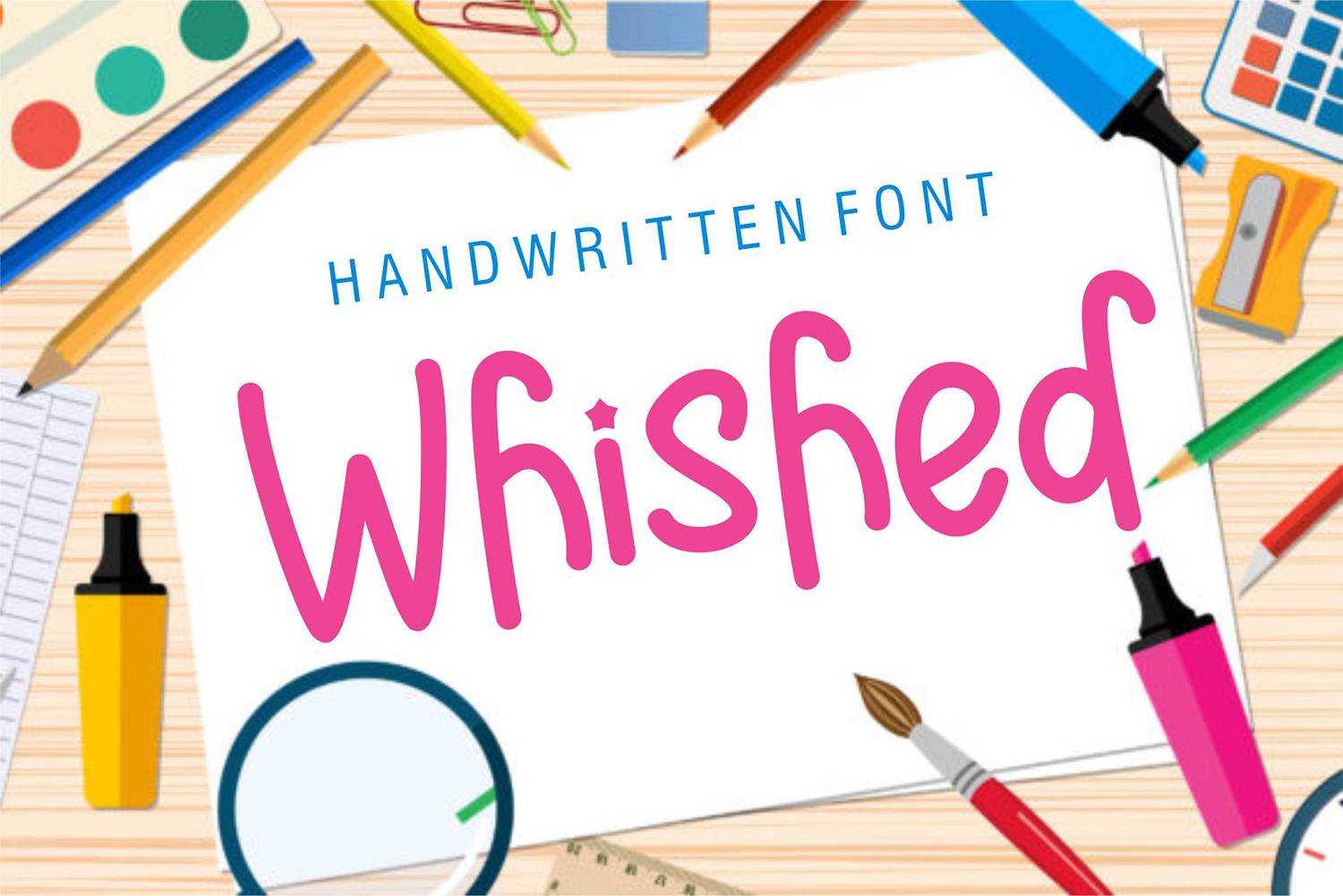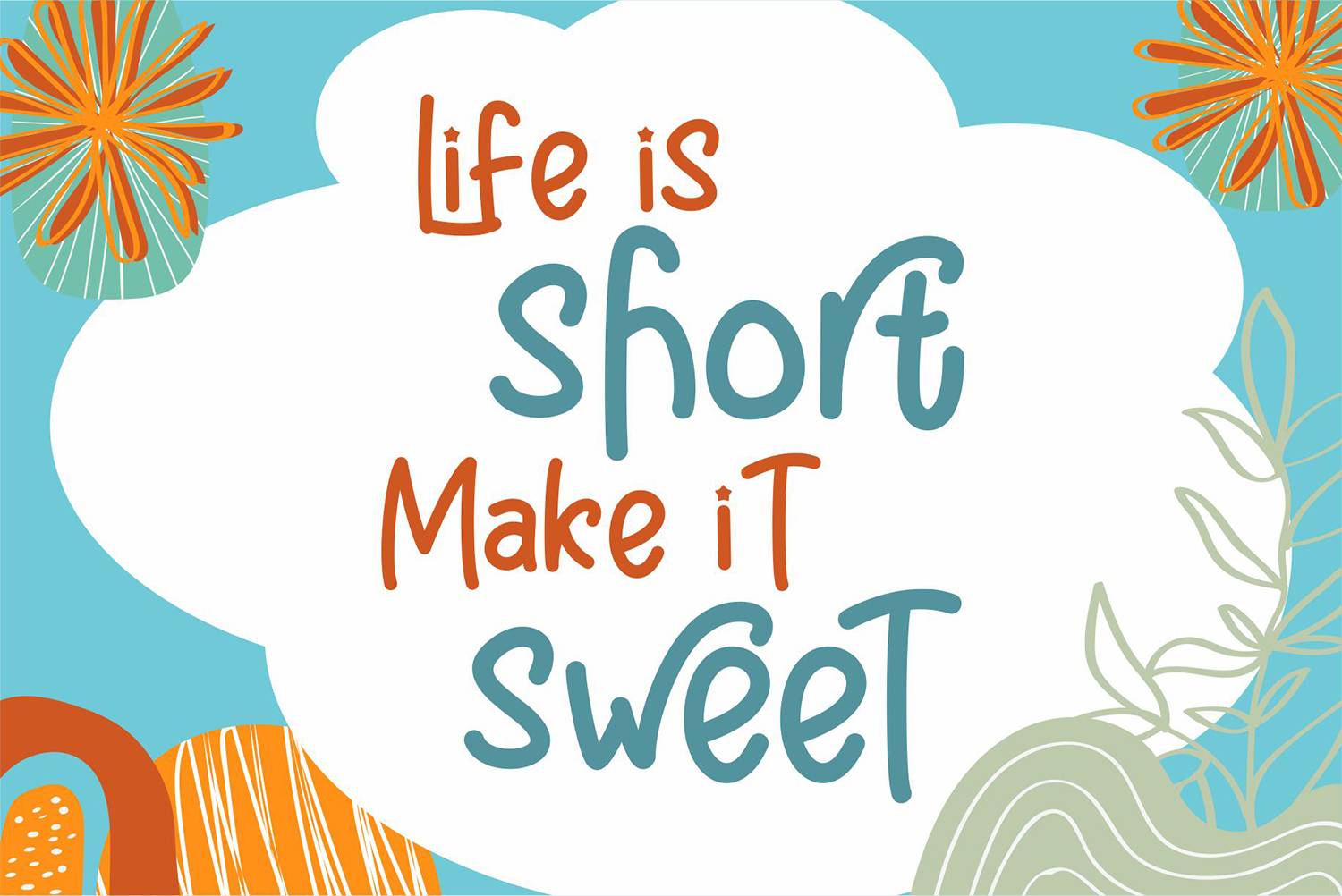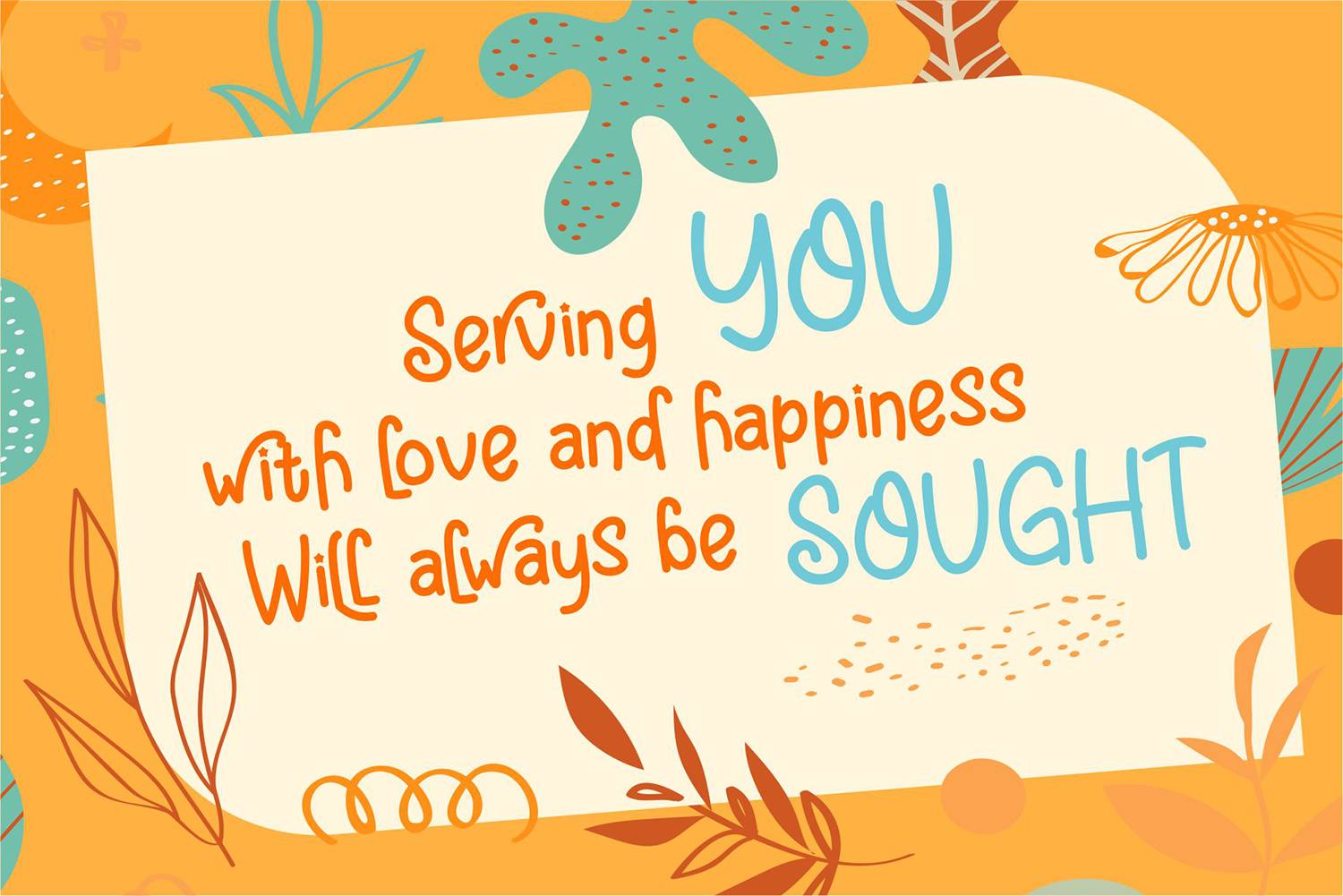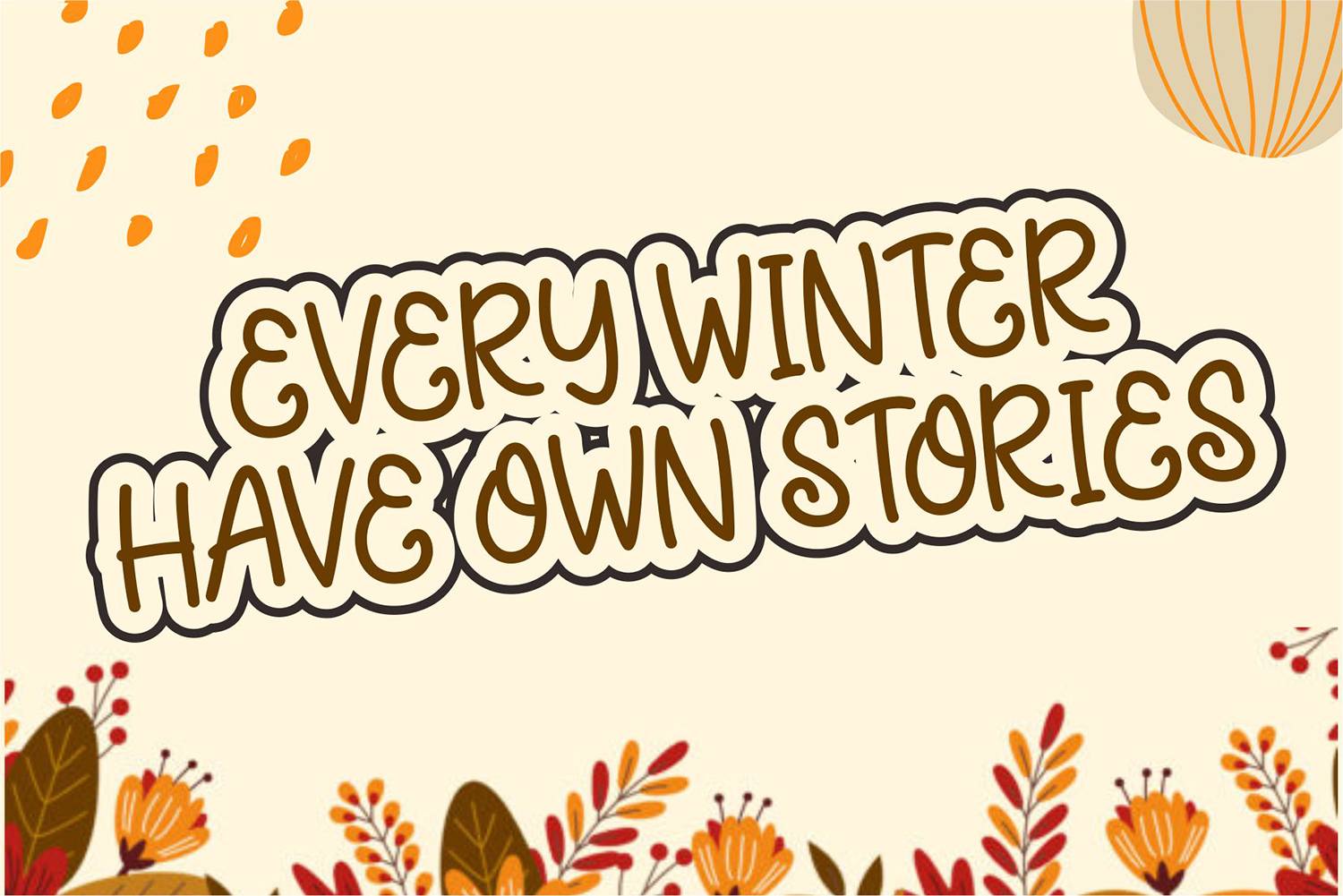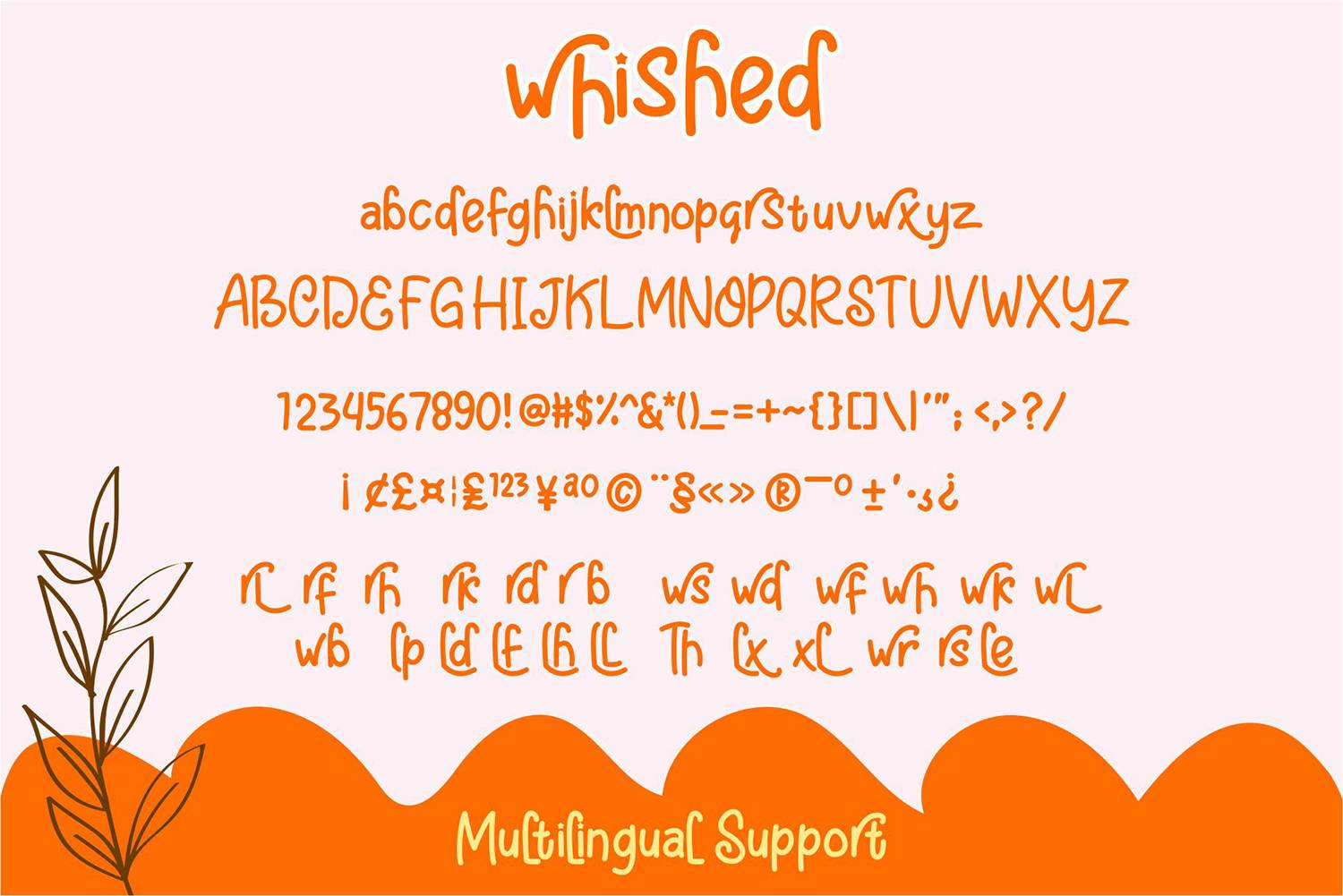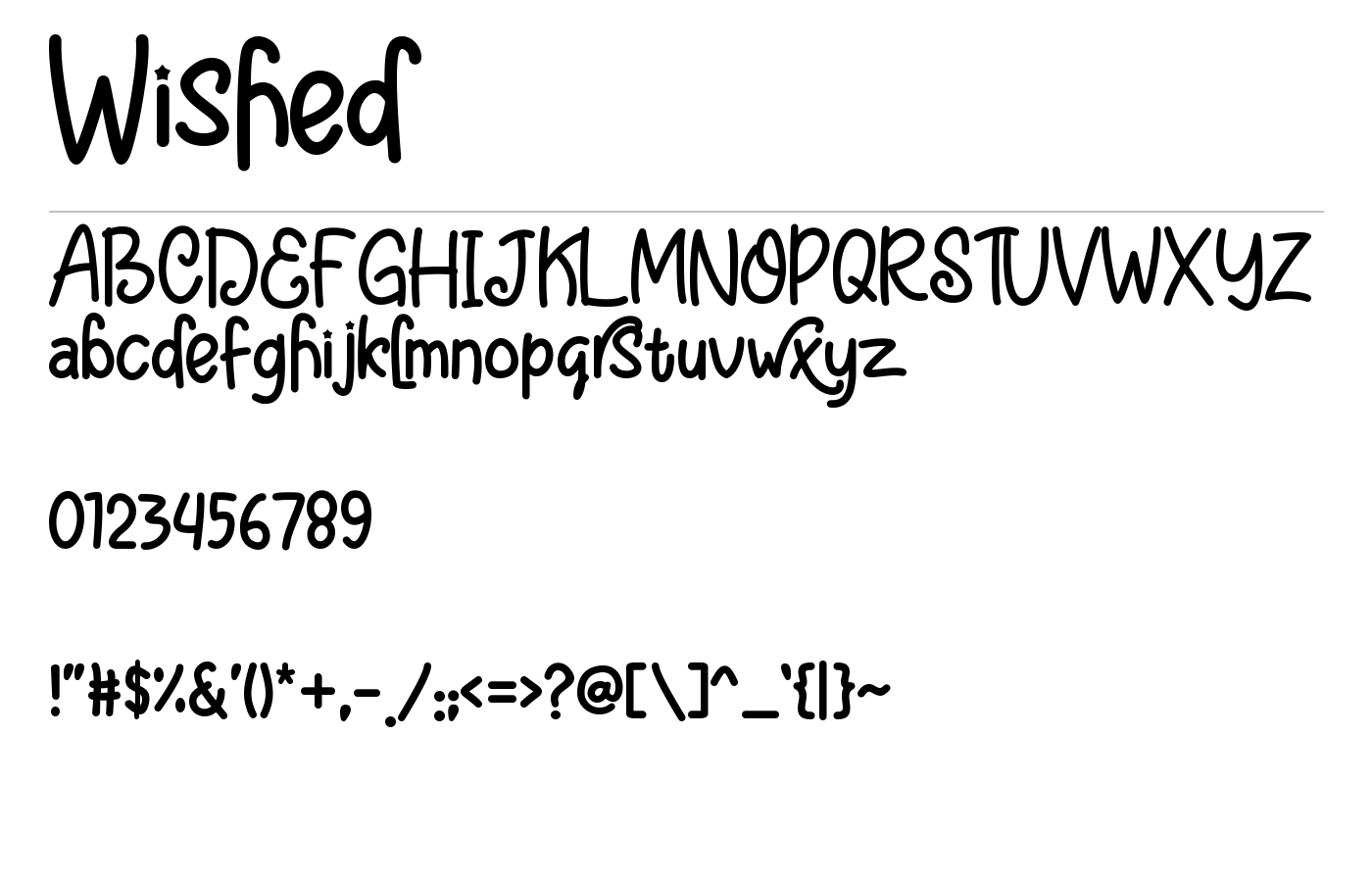
Whished is a playful, hand-drawn sans serif font characterized by its casual, rounded letterforms and lively, uneven strokes that give it a warm, friendly personality. Its whimsical details, like the star-shaped dot on the “i” and quirky letter shapes, make it perfect for creative projects, children’s books, or brands seeking an approachable and fun vibe. This font works well in headlines, logos, and packaging where a lighthearted, informal tone is desired.
Whished Font
About Whished Font
| Font family | Whished Font |
| Designer | Riyadh Rahman |